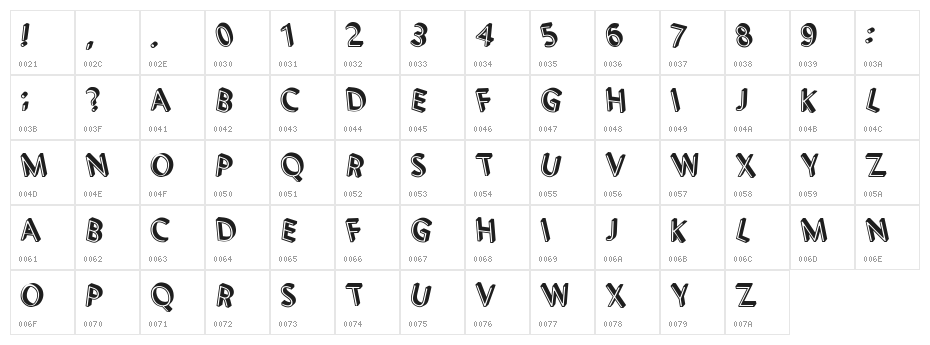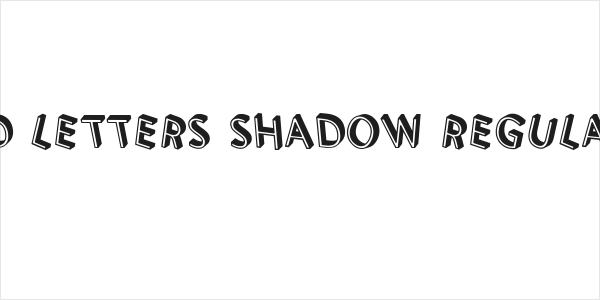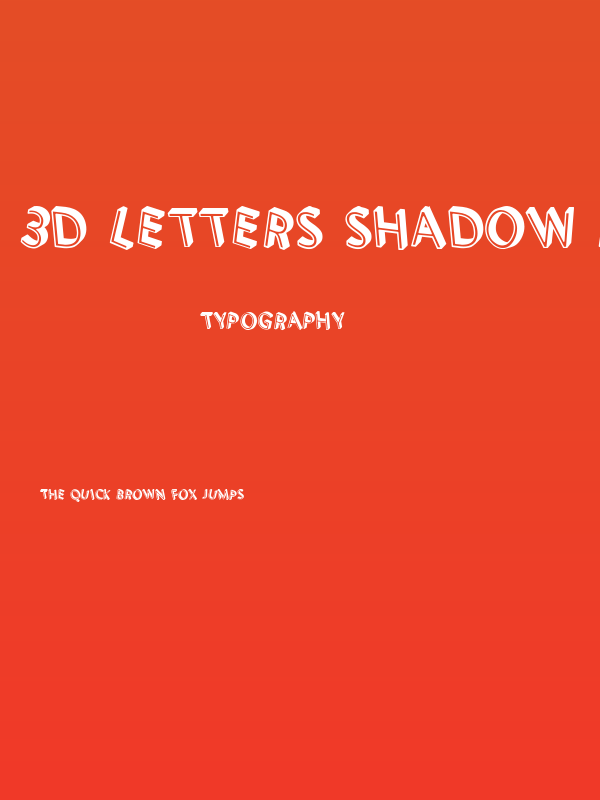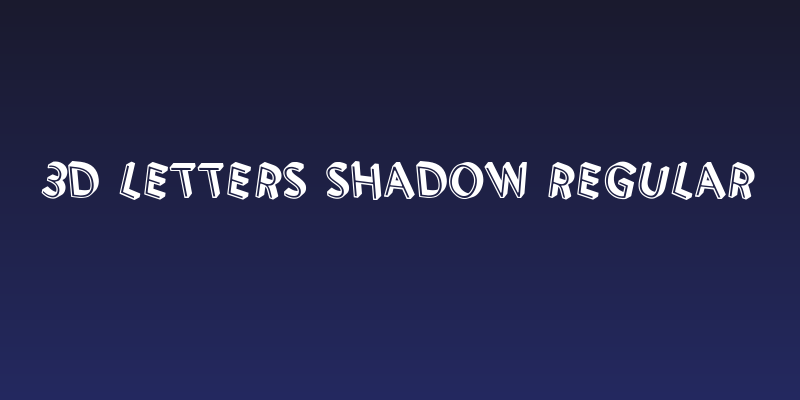
3D Letters Shadow Regular Font
3D Letters Shadow Regular Description
This font features a bold, three-dimensional appearance with a distinct shadow effect that gives each character a sense of depth and dimension. The letters are uppercase and lowercase, with numerals and a selection of punctuation marks. The style is playful and eye-catching, making it ideal for projects that require a strong visual impact. The characters are evenly spaced, ensuring readability while maintaining the decorative nature of the font. The shadow effect is consistent across all characters, adding to the cohesive look of the typeface.